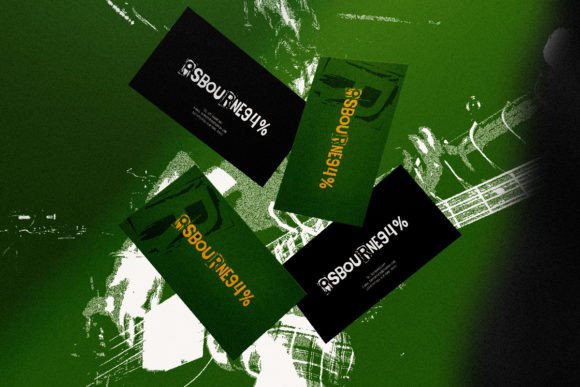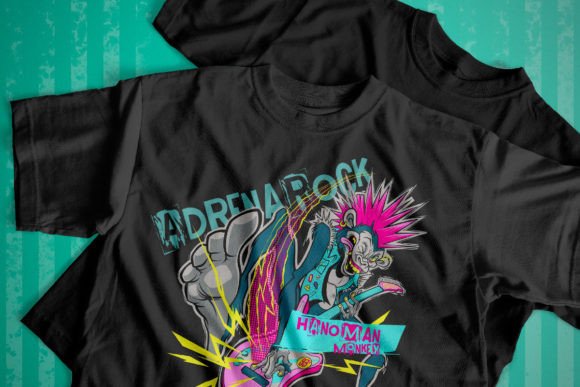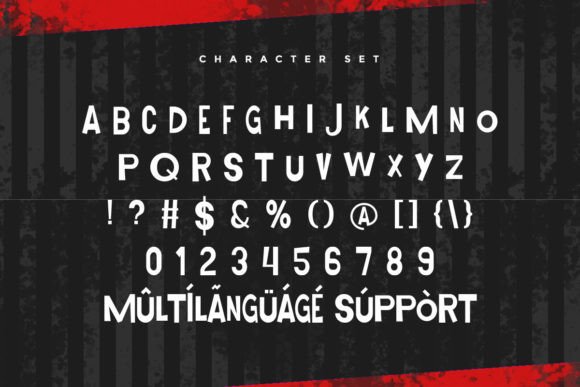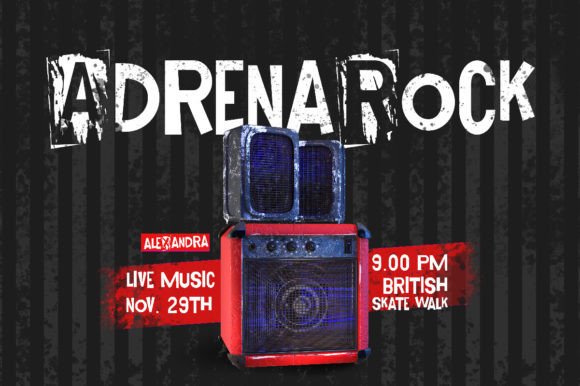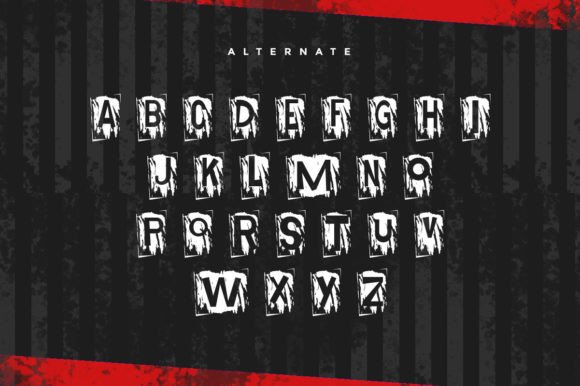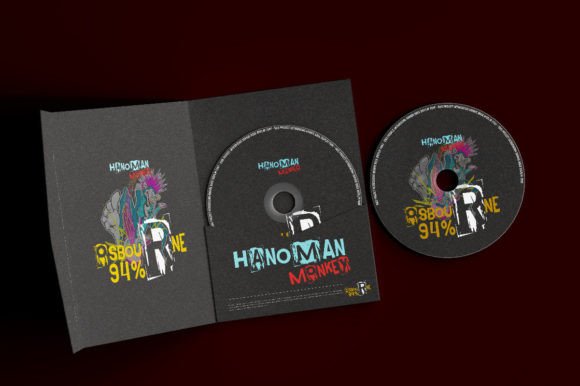
Abrade Rock Font: The Ultimate Display Font for Music-Inspired Designs
Are you a designer, artist, or musician looking for a font that captures the essence of rock music and adds an artistic touch to your projects? Look no further than Abrade Rock Font, a display font that embodies the spirit of band rock and the music industry. In this article, we’ll dive into the features and benefits of Abrade Rock Font, and explore how it can elevate your designs to the next level.
What is Abrade Rock Font?
Abrade Rock Font is a specially crafted display font that draws inspiration from the world of rock music. Its unique style is perfect for creating eye-catching designs that require an artistic flair. Whether you’re working on a business card, custom design, film project, or poster, Abrade Rock Font is the ideal choice for adding a touch of rock ‘n’ roll to your work.
Key Features of Abrade Rock Font
- PUA Encoded: Abrade Rock Font is PUA (Private Use Area) encoded, which means you can easily access all the amazing glyphs and ligatures without any hassle. This feature makes it simple to use and incorporate the font into your designs.
- Display Font: As a display font, Abrade Rock Font is designed to make a statement. Its bold and edgy style ensures that your text stands out and grabs attention.
- Music-Inspired: The font’s design is inspired by the world of rock music, making it perfect for musicians, music producers, and anyone who wants to add a touch of rock ‘n’ roll to their designs.
Who Can Benefit from Abrade Rock Font?
Abrade Rock Font is a versatile font that can be used by various professionals and creatives, including:
- Artists: Add an artistic touch to your work with a font that’s inspired by the music industry.
- Musicians: Use Abrade Rock Font to create eye-catching posters, flyers, and social media graphics that showcase your music.
- Film Directors: Add a touch of rock ‘n’ roll to your film projects with a font that’s bold and attention-grabbing.
- Designers: Expand your font collection with Abrade Rock Font, perfect for creating unique and artistic designs.
- Crafters: Use Abrade Rock Font to add a personal touch to your handmade projects, such as custom cards and invitations.
- Play with glyphs and ligatures: Use the PUA encoded features to access a range of glyphs and ligatures that add a touch of personality to your design.
- Is Abrade Rock Font suitable for body text? Abrade Rock Font is a display font, so it’s best used for headings and titles. For body text, it’s recommended to use a clear and readable font.